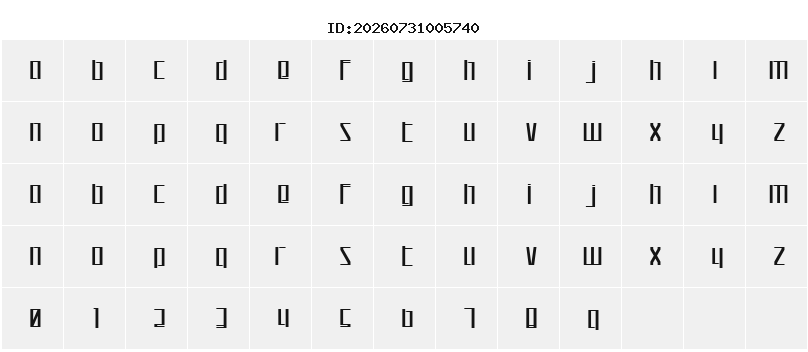
• Font Name: Lode
• Font ID: Macromedia Fontographer 4.1 Lode
• Full Font Name: Lode
• Version: First Version-6/4/99
• PostScript Name: Lode
• Character Count: 71
About Lode.ttf
Lode.ttf is a modern, elegant sans-serif font designed for ultimate readability and visual harmony. Perfect for branding, headlines, web design, and print materials.